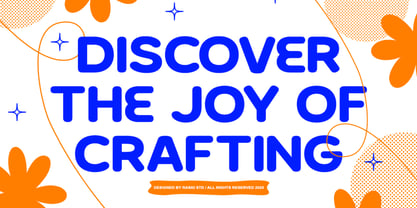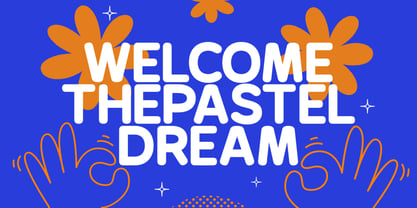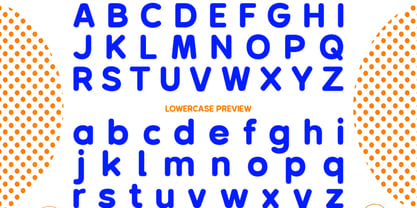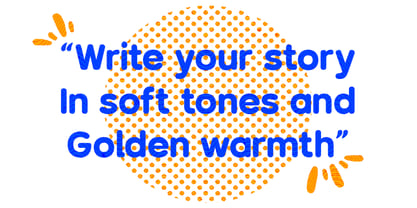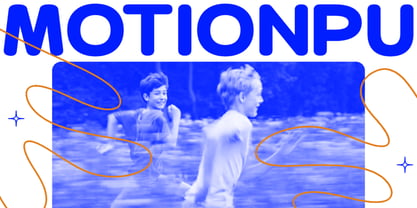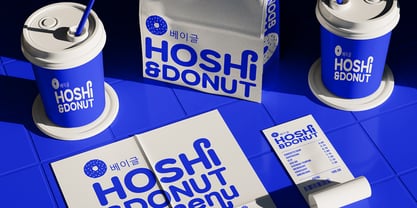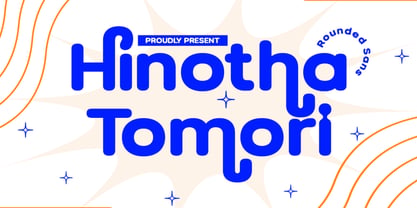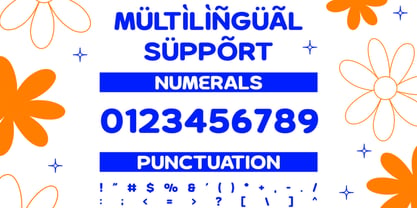
Hinotha Tomori
Die Schriftfamilie Hinotha Tomori wurde von Fajar Indra entworfen und von Rasio Studio veröffentlicht. Hinotha Tomori enthält 1 Stile. Mehr über diese Familie
Hinotha Tomori is a modern, playful rounded sans serif typeface designed to bring energy, softness, and personality into your projects. With its cheerful curves, friendly character shapes, and clean construction, Hinotha Tomori is a versatile font suitable for a variety of design needs from kids’ content and lifestyle branding to packaging and editorial layouts. It features stylistic alternates, ligatures, and multilingual support, offering flexibility and creativity in every use. Hinotha Tomori is ideal for projects that need a friendly, energetic visual tone. Perfect for children’s books, toy branding, creative packaging, social media visuals, playful posters, and cheerful lifestyle logos, it combines approachability with design precision. Its rounded forms and ligature options make it a great pick for designers looking to inject warmth and personality into their work without sacrificing legibility.